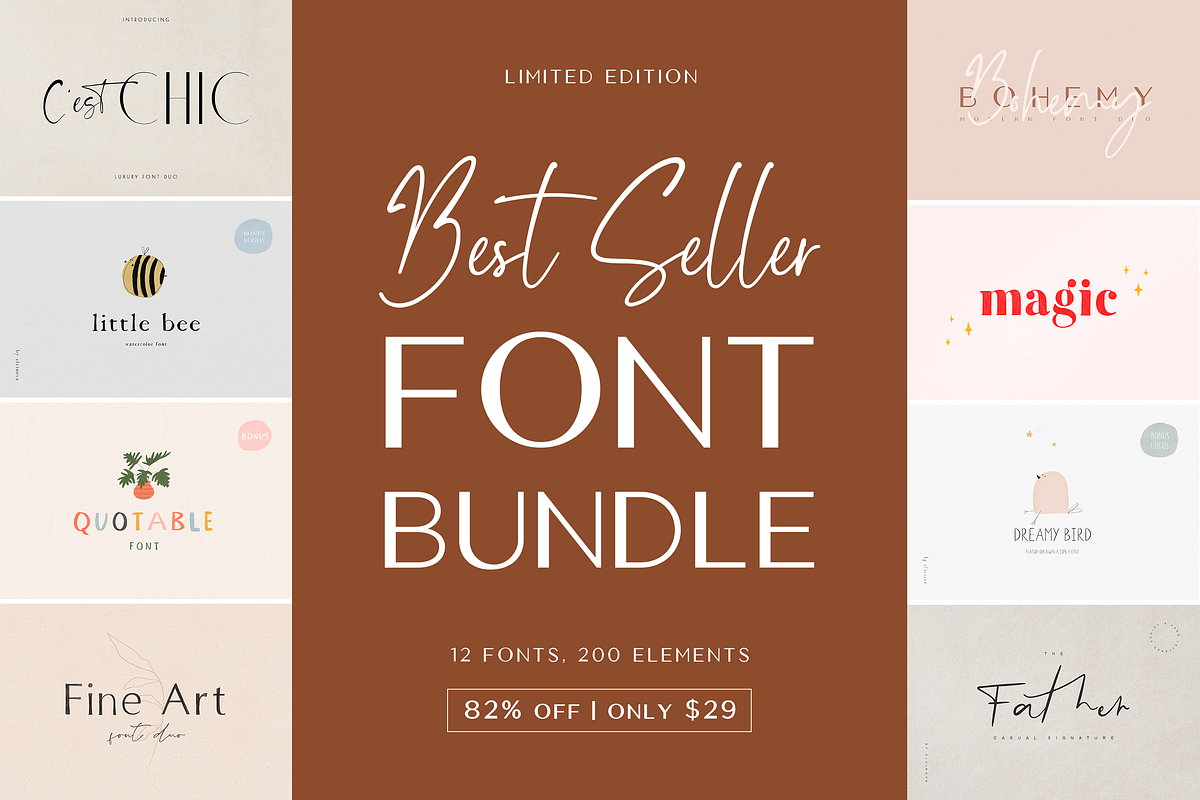
You must purchase this font for commercial use. However, you can download Best Seller Font Bundle Free Download for testing purposes. The Best Seller Font Bundle is a premium collection of top-performing typefaces, curated to offer maximum versatility and design impact across a wide range of projects. This bundle typically includes a mix of serif, sans-serif, script, display, and decorative fonts—giving designers a powerful toolkit for branding, packaging, logos, social media graphics, wedding stationery, and more.
Each font in the Best Seller Font Bundle is crafted with care, often featuring stylistic alternates, ligatures, and multilingual support to give your typography a polished, professional finish. Whether you’re aiming for a modern minimalist look or a vintage-inspired vibe, this bundle has a font to match. Best Seller Font Bundle Free Download allows you to explore and test-drive these high-quality fonts before committing to a commercial license. Don’t forget to obtain the proper license for business or client use. Download Best Seller Font Bundle Free Download today and unlock a world of creative possibilities with a curated collection of standout typefaces.